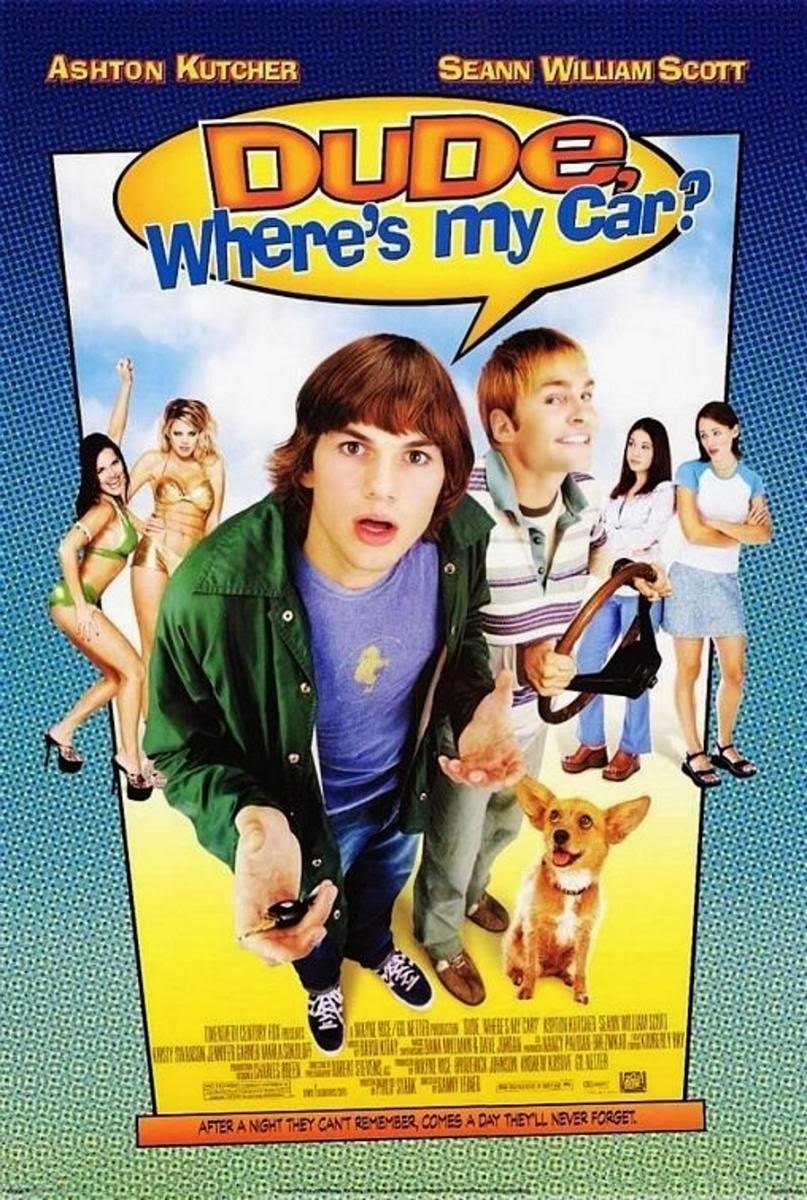
Dude Where's My Car Font
ComedyDude, Where’s My Car? is a 2000 American comedy film directed by Danny Leiner and starring Ashton Kutcher and Seann William Scott as two friends who go on a wild journey to find their lost car after a night of partying.
Ad Lib is most likely used for the film's title lettering on the poster. Ad Lib is a decorative font created by Freeman Craw in 1961 for the American Type Founders. This font is known for its irregular rectangular shapes within round characters like a, b, d, and o.